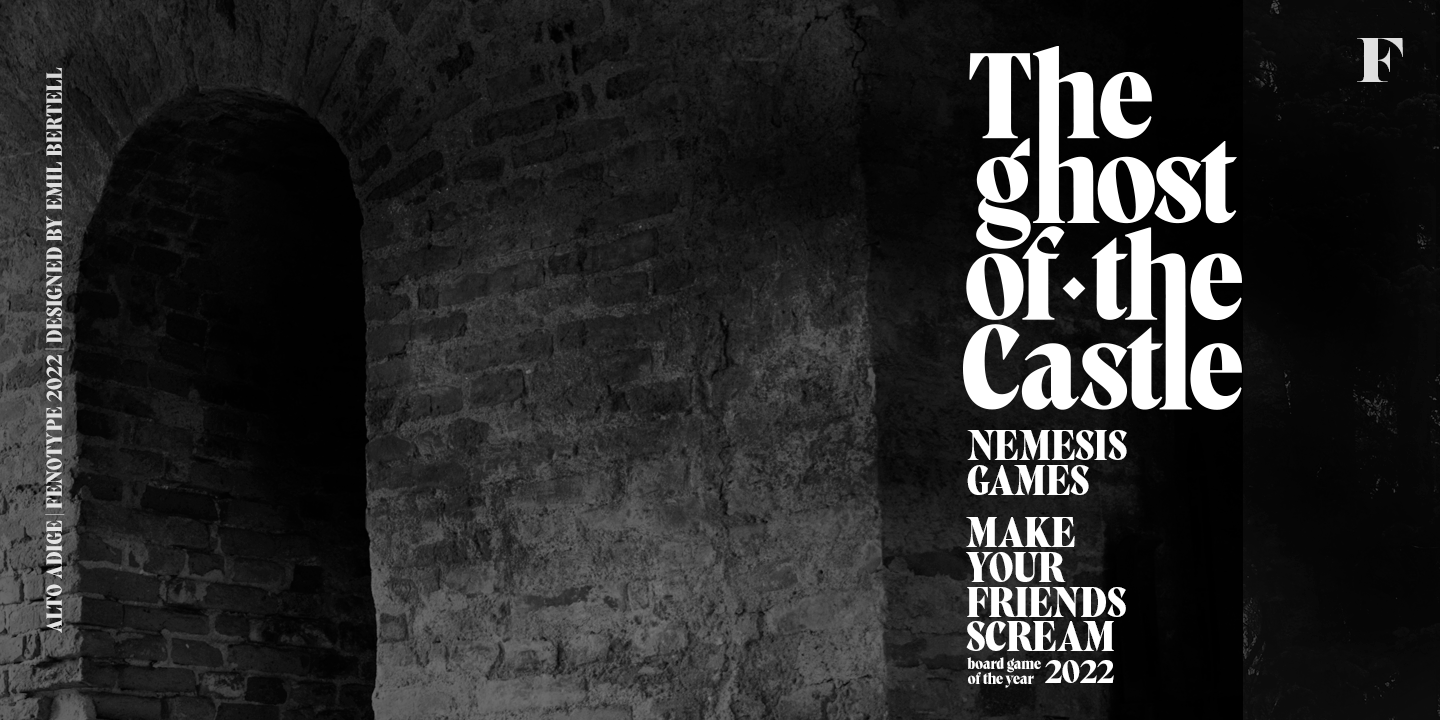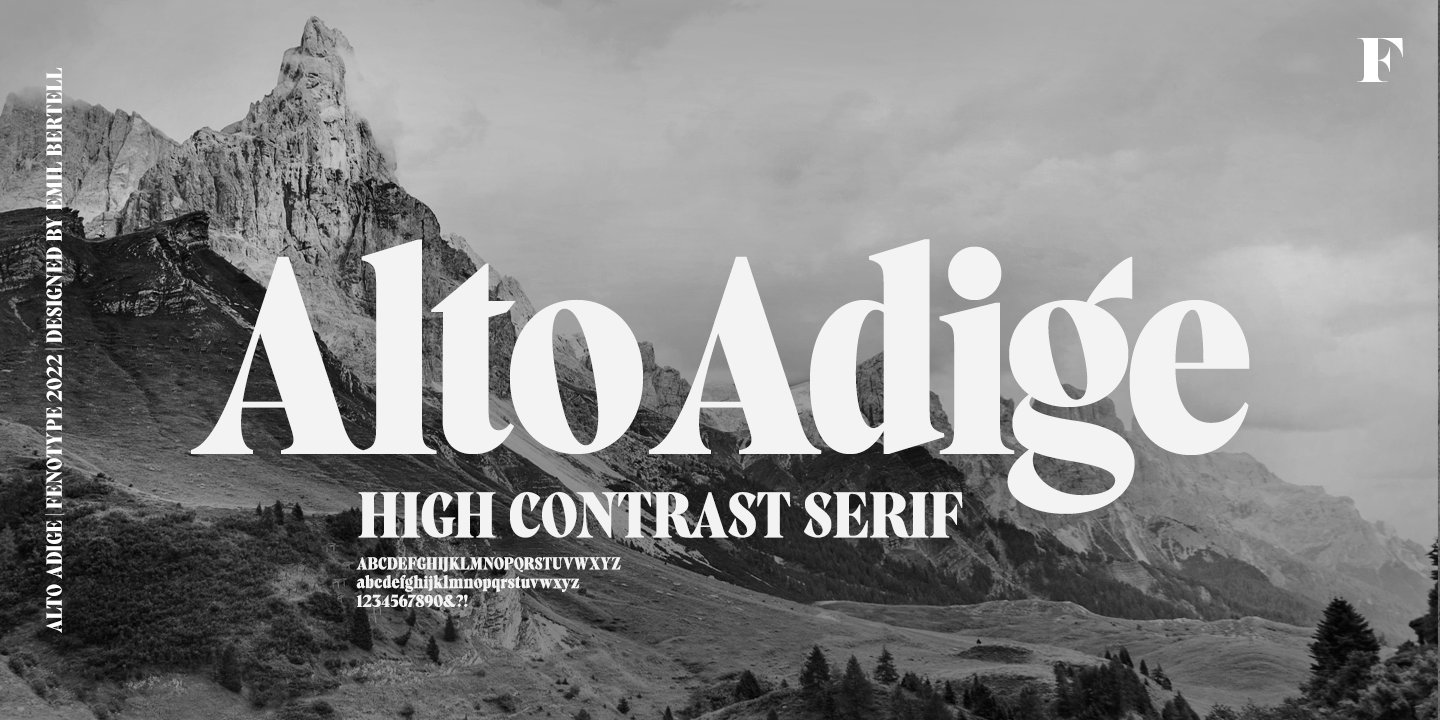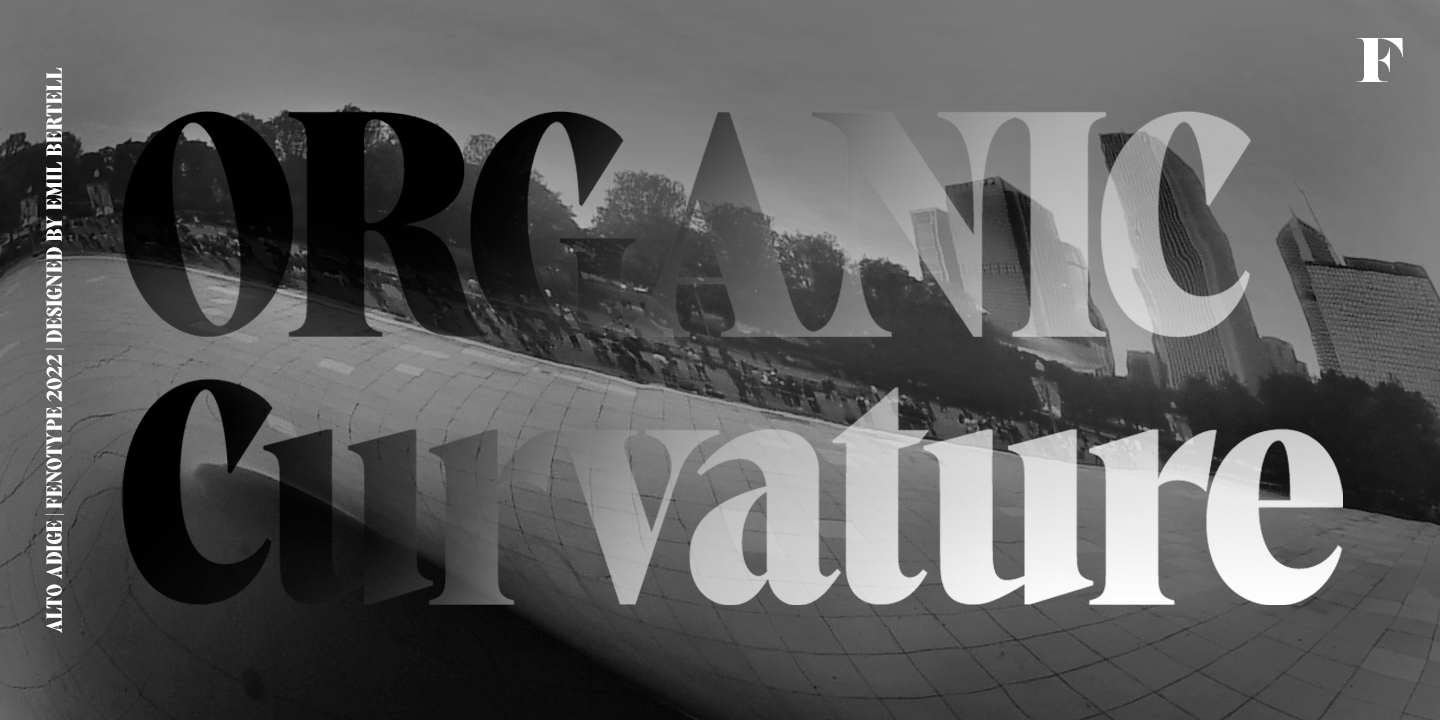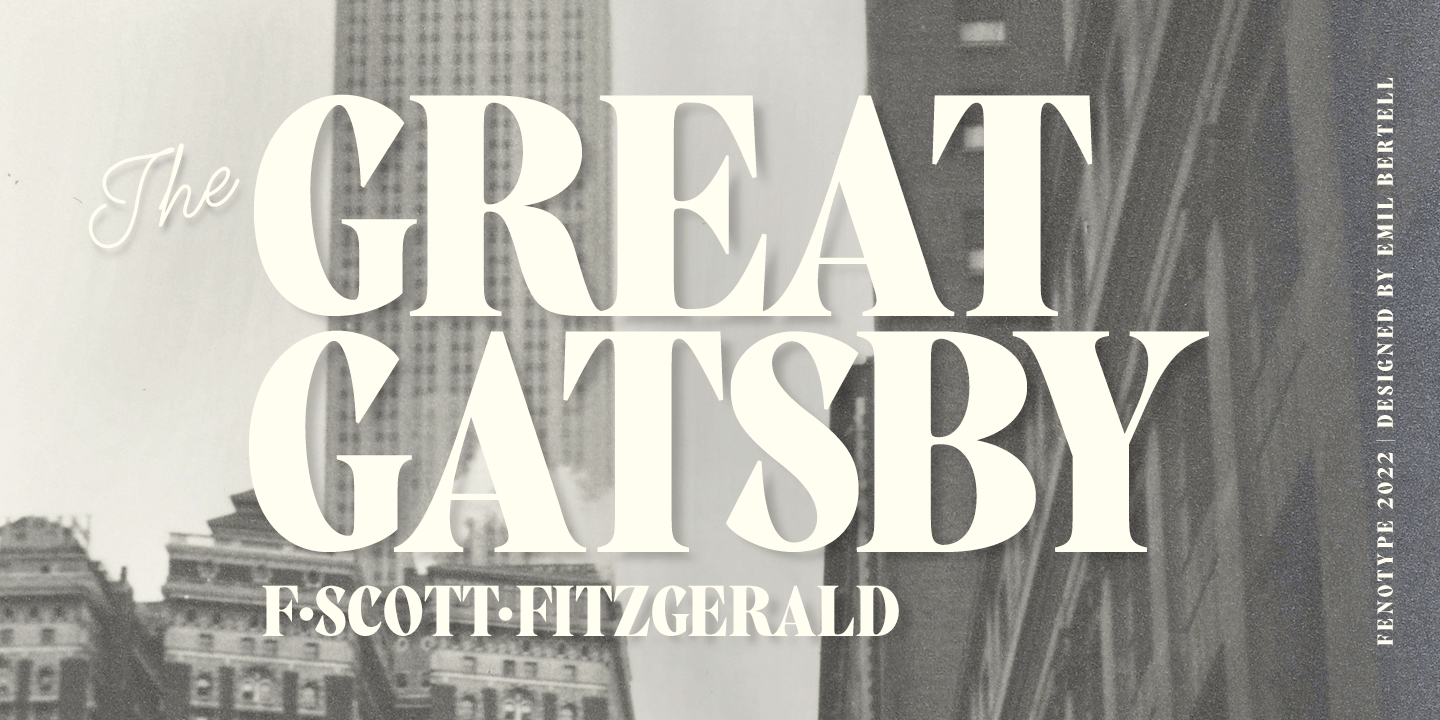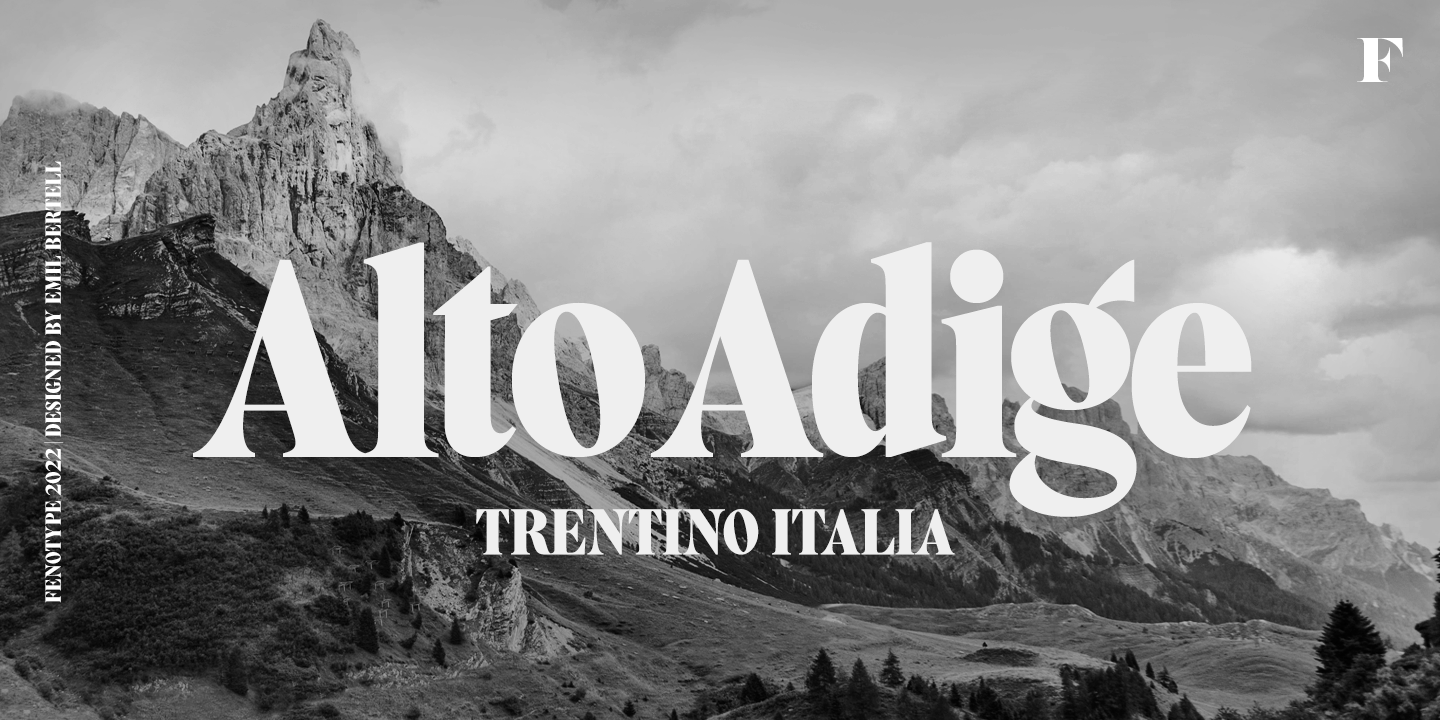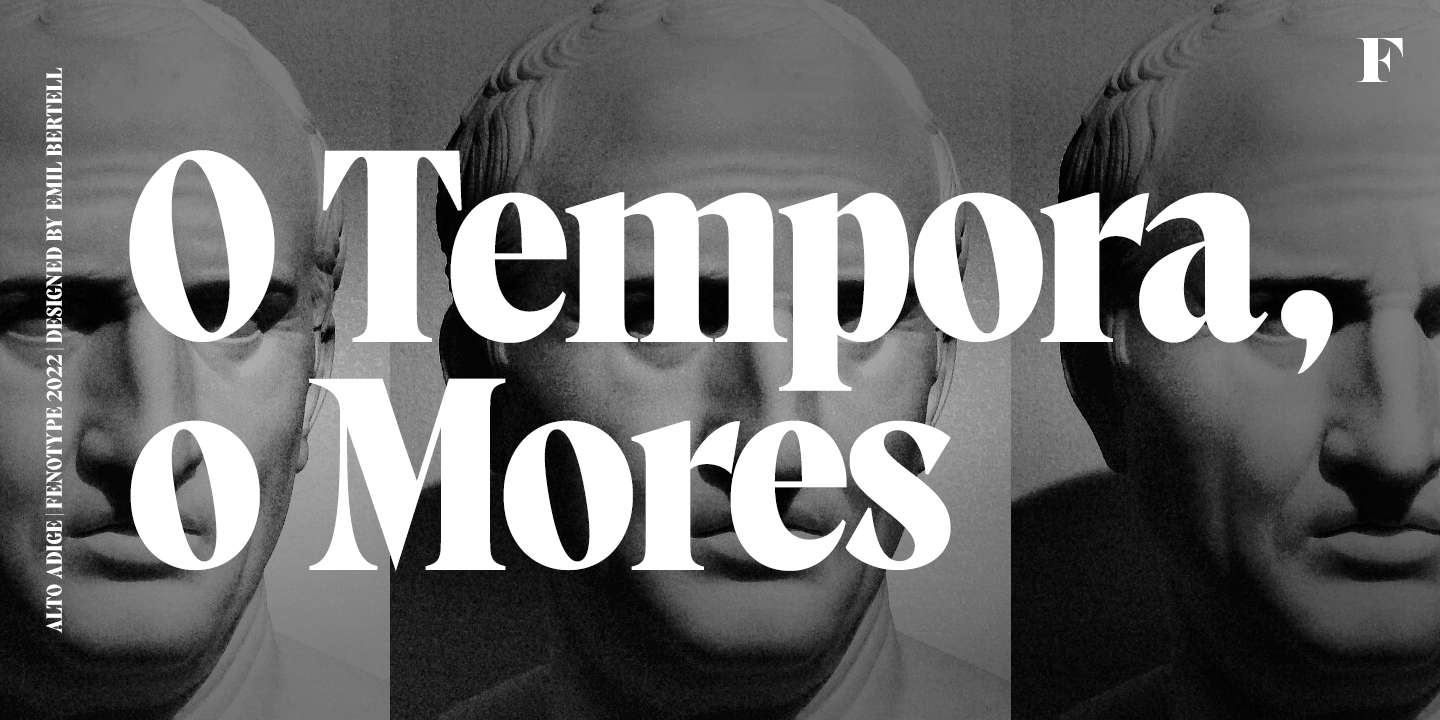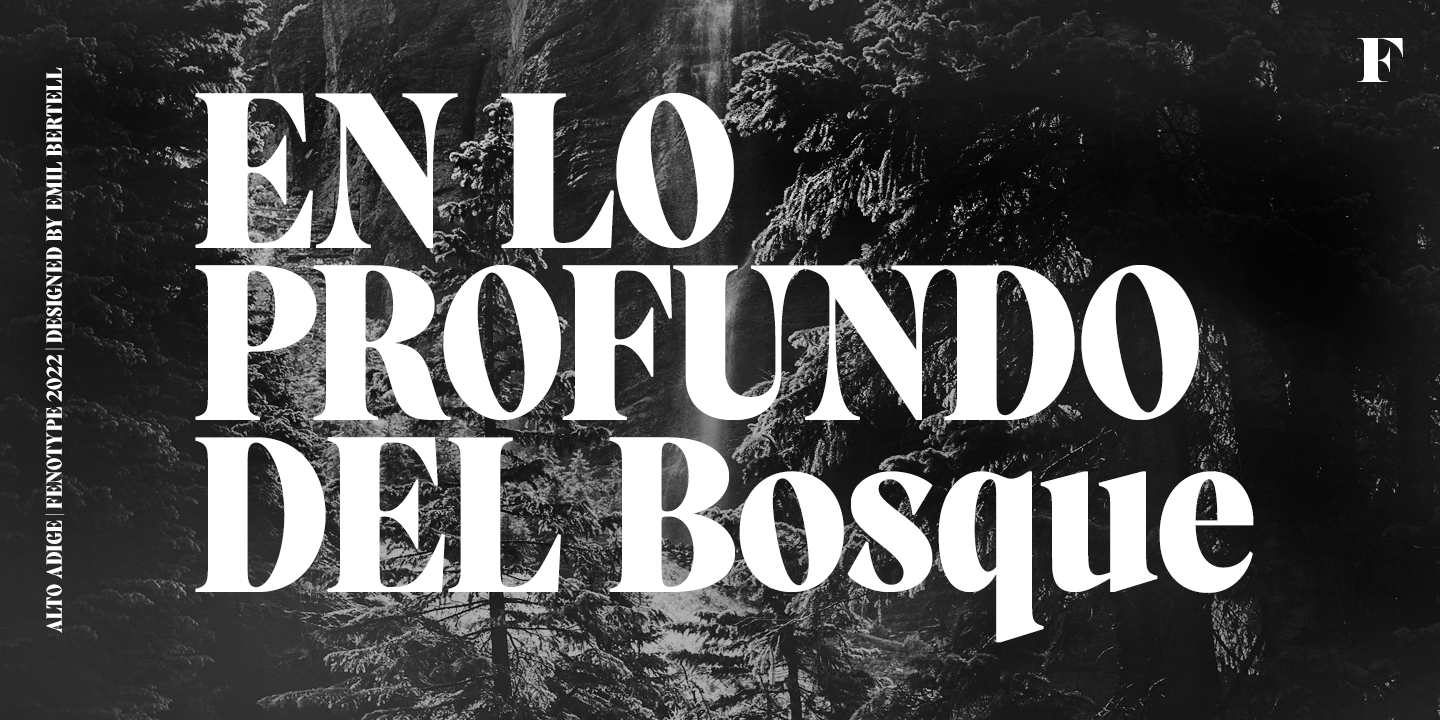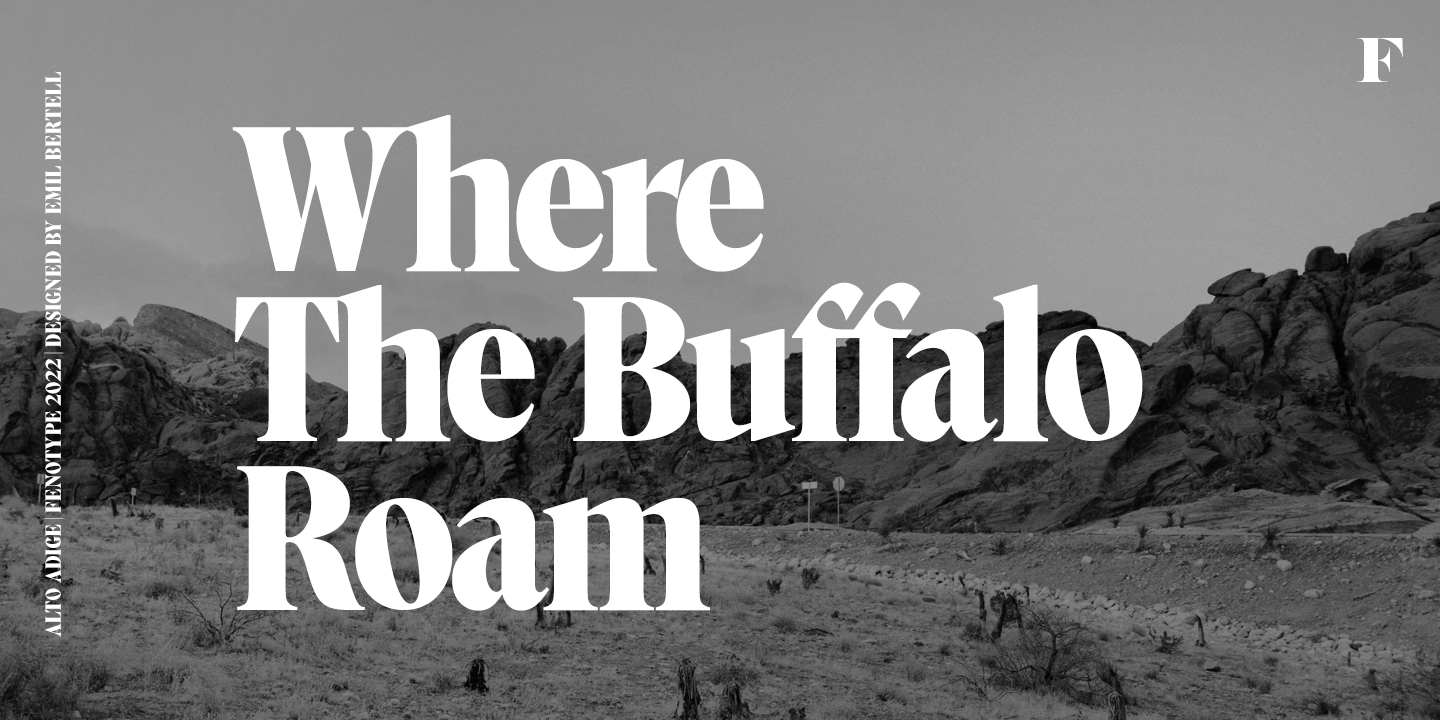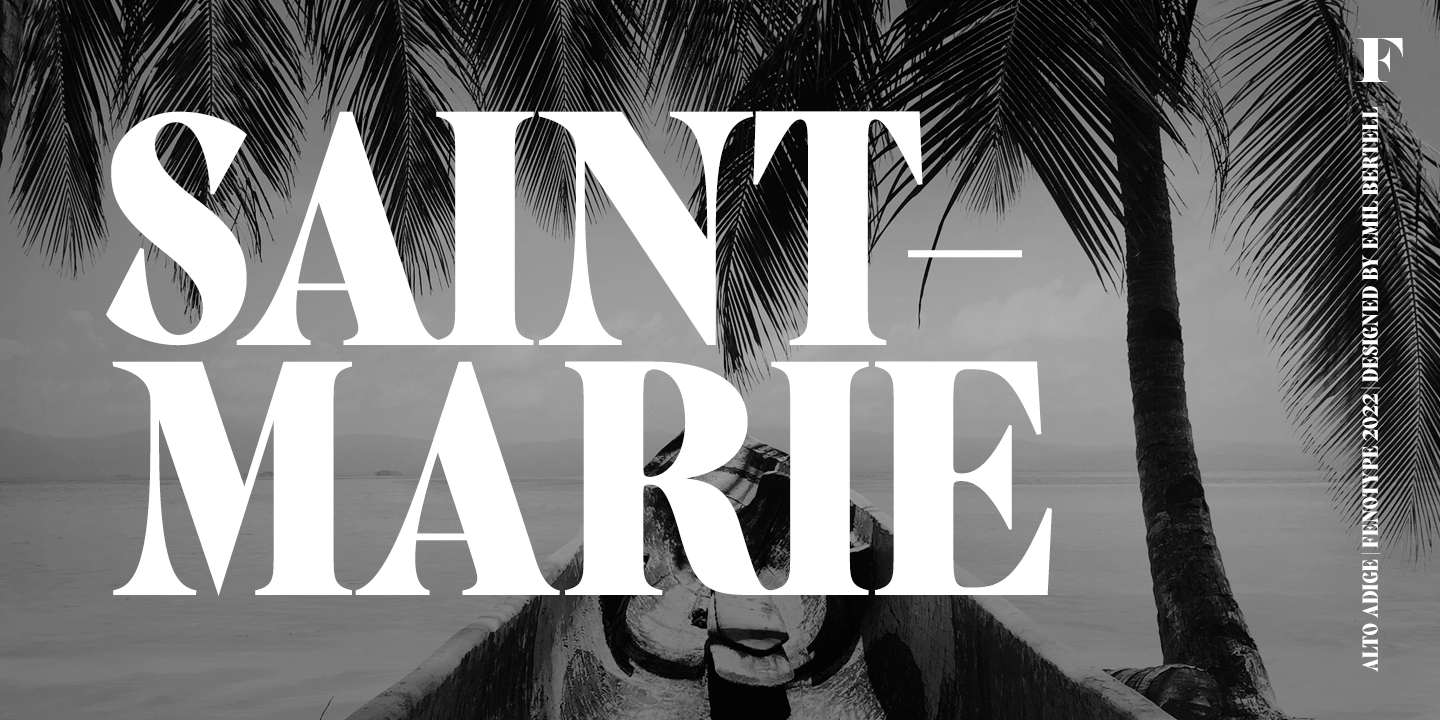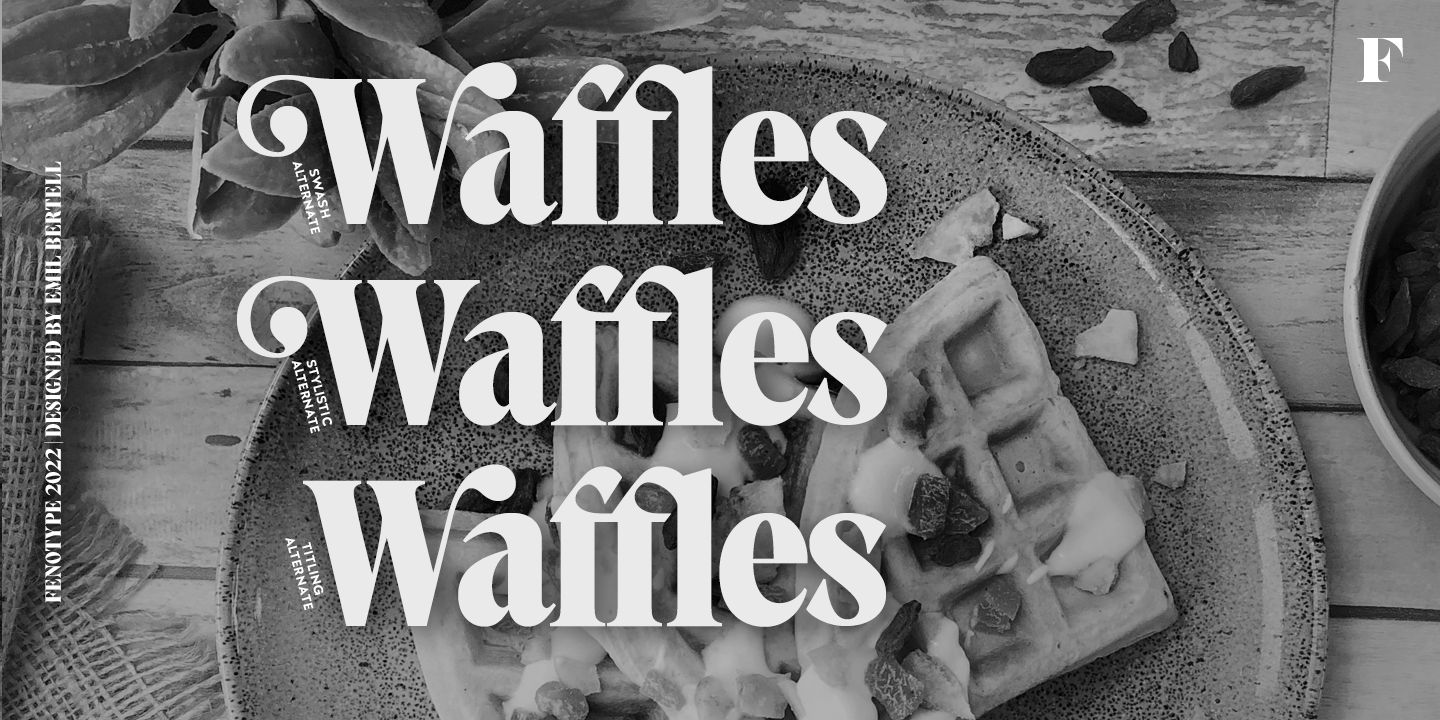
Named after Italy’s northernmost region, Alto Adige is a high-contrast display serif typeface. With its condensed width and bold contrast it is excellent for headlines, packaging, magazines, posters and advertising, among any other display use. Alto Adige has large x-height making it a steady choice for sturdy text blocks with tight leading. In large sizes, you can also try tighter tracking for maximum impact. Alto Adige comes with a set of OpenType features: Contextual Alternates and Standard Ligatures are automatically on for certain character pairs. In addition it has over 50 alternates for display capital initials, set in Swash, Stylistic and Titling Alternates.